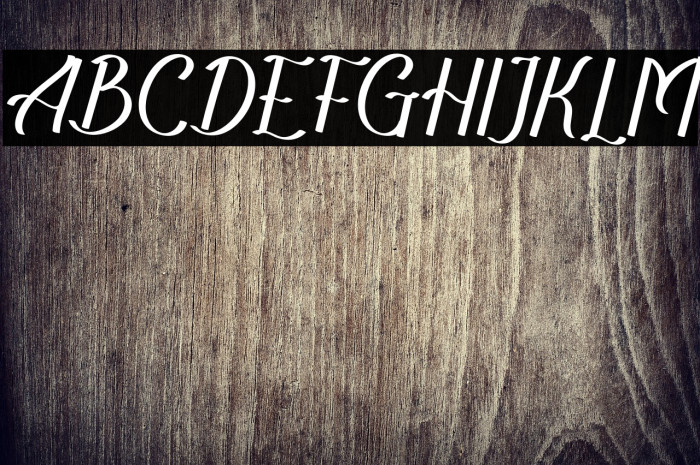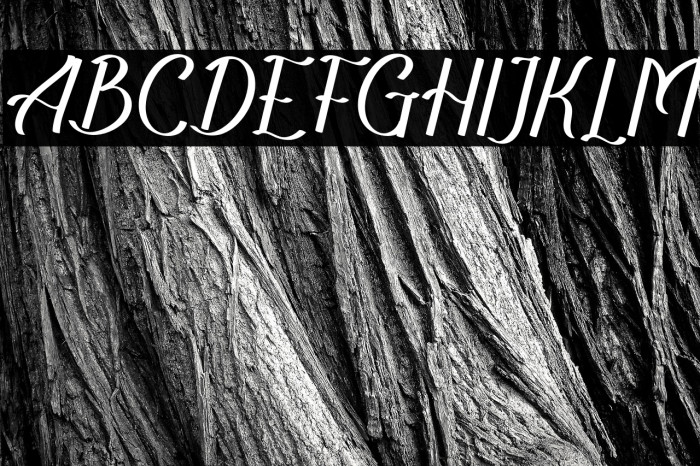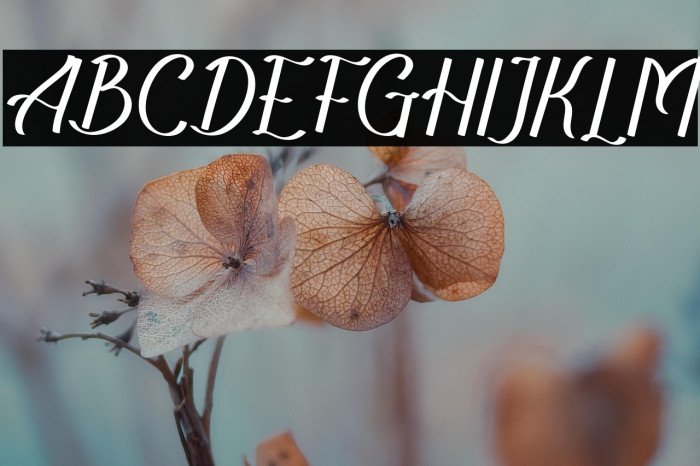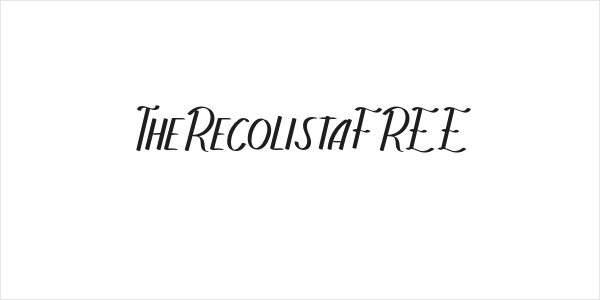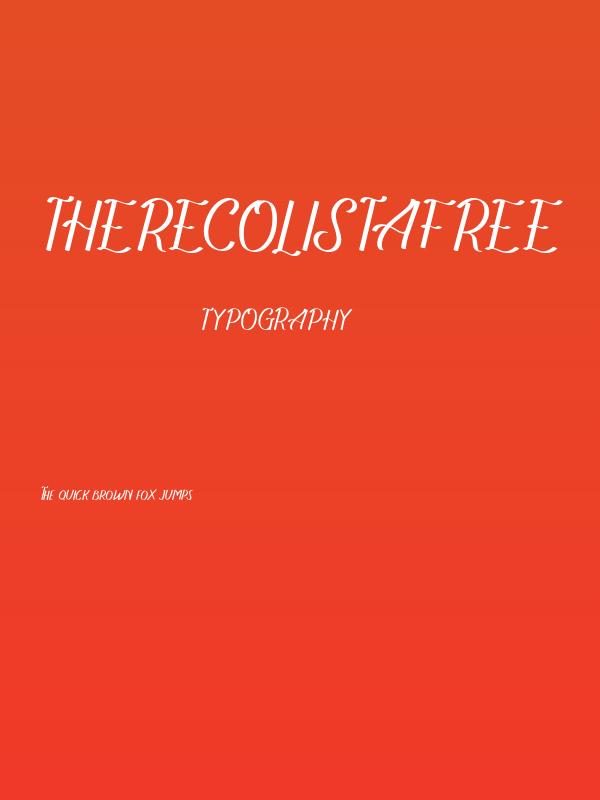
TheRecolistaFREE Font
TheRecolistaFREE Description
This font features a dynamic and flowing script style, characterized by its elegant curves and smooth transitions between letters. The uppercase letters exhibit a harmonious balance of thick and thin strokes, adding a sense of movement and grace. The lowercase letters maintain this fluidity, with a slightly more compact form that complements the uppercase. The overall appearance is both sophisticated and approachable, making it suitable for a variety of design applications. The font's unique style is ideal for projects that require a touch of elegance and personality.
A dynamic script font with elegant curves and smooth transitions from Uncategorized fonts.
- Font: TheRecolistaFREE
- Proposed Projects: Ideal for wedding invitations, branding, greeting cards, and elegant packaging designs.
- Overall Style: Elegant
- Use Case: Logos, Invitations, Decorative text